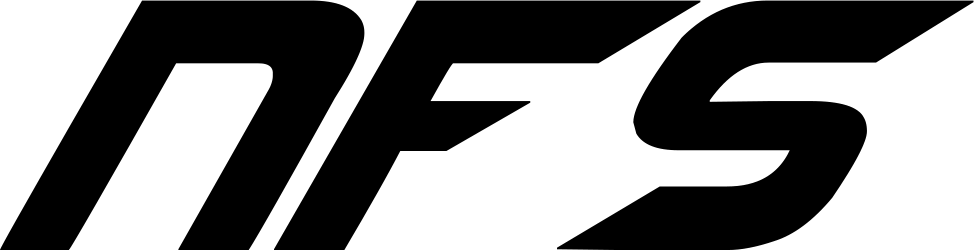
NFS Font
Rise attention and seize a futuristic and energetic feel for your typography by selecting, NFS that offers bold italic and strong characters. This automotive font includes A to Z capitalized letters, numbers, and symbols…
Rise attention and seize a futuristic and energetic feel for your typography by selecting, NFS that offers bold italic and strong characters. This automotive font includes A to Z capitalized letters, numbers, and symbols that will provide you with the most interesting and attractive design.
The best places NFS will surprise you with its modern look are sci-fi magazines, apps, games, movies, space projects, or wherever you need a futuristic and easy-to-read sci-fi font for your amazing typography.